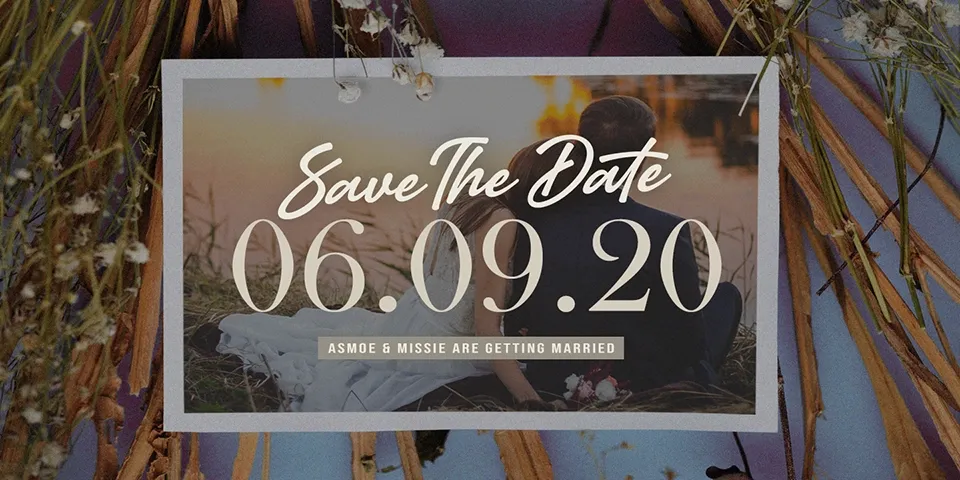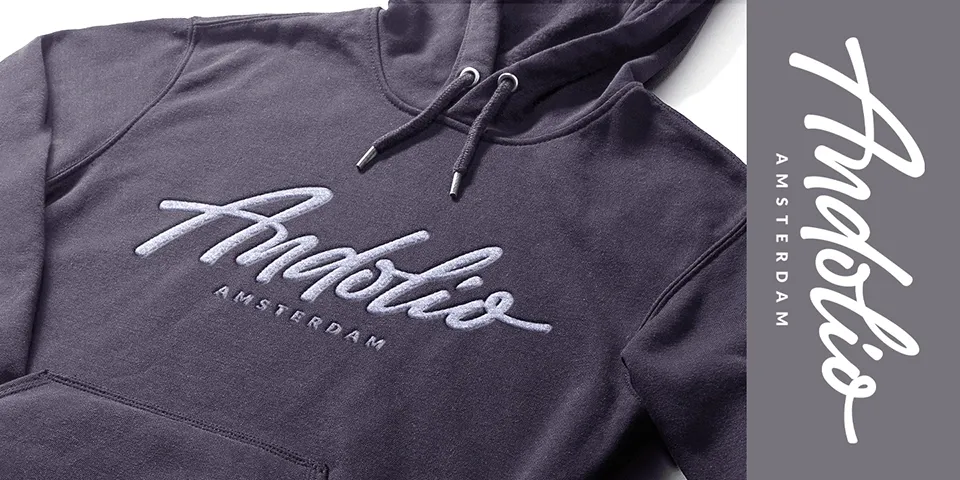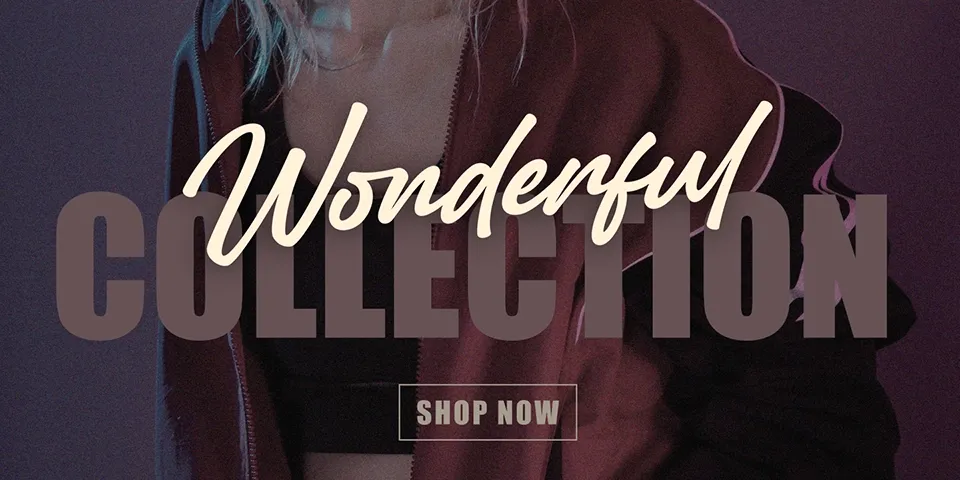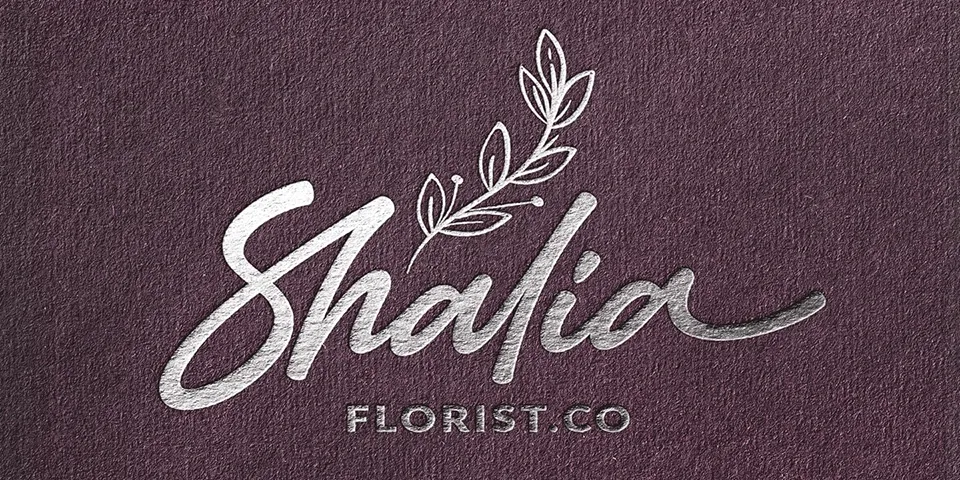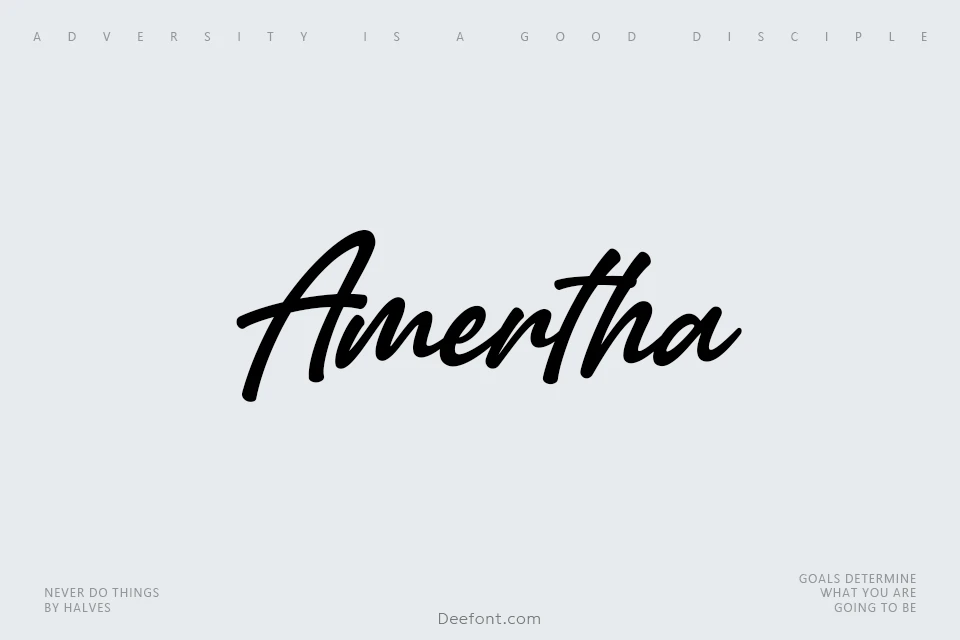
Amertha Font
Amertha Font is a bold and stylish signature typeface that radiates confidence and sophistication. With its smooth, flowing strokes and handcrafted charm, Amertha is designed to bring a personal touch to your creative projects. Perfect for logos, branding, invitations, and social media graphics, this font captures attention with its elegant yet modern aesthetic. Its dynamic letterforms and natural curves make it versatile for both formal and casual designs. Amertha Font is more than just a typeface—it’s a statement of creativity and individuality. Elevate your designs with this striking font and leave a lasting impression with every project.